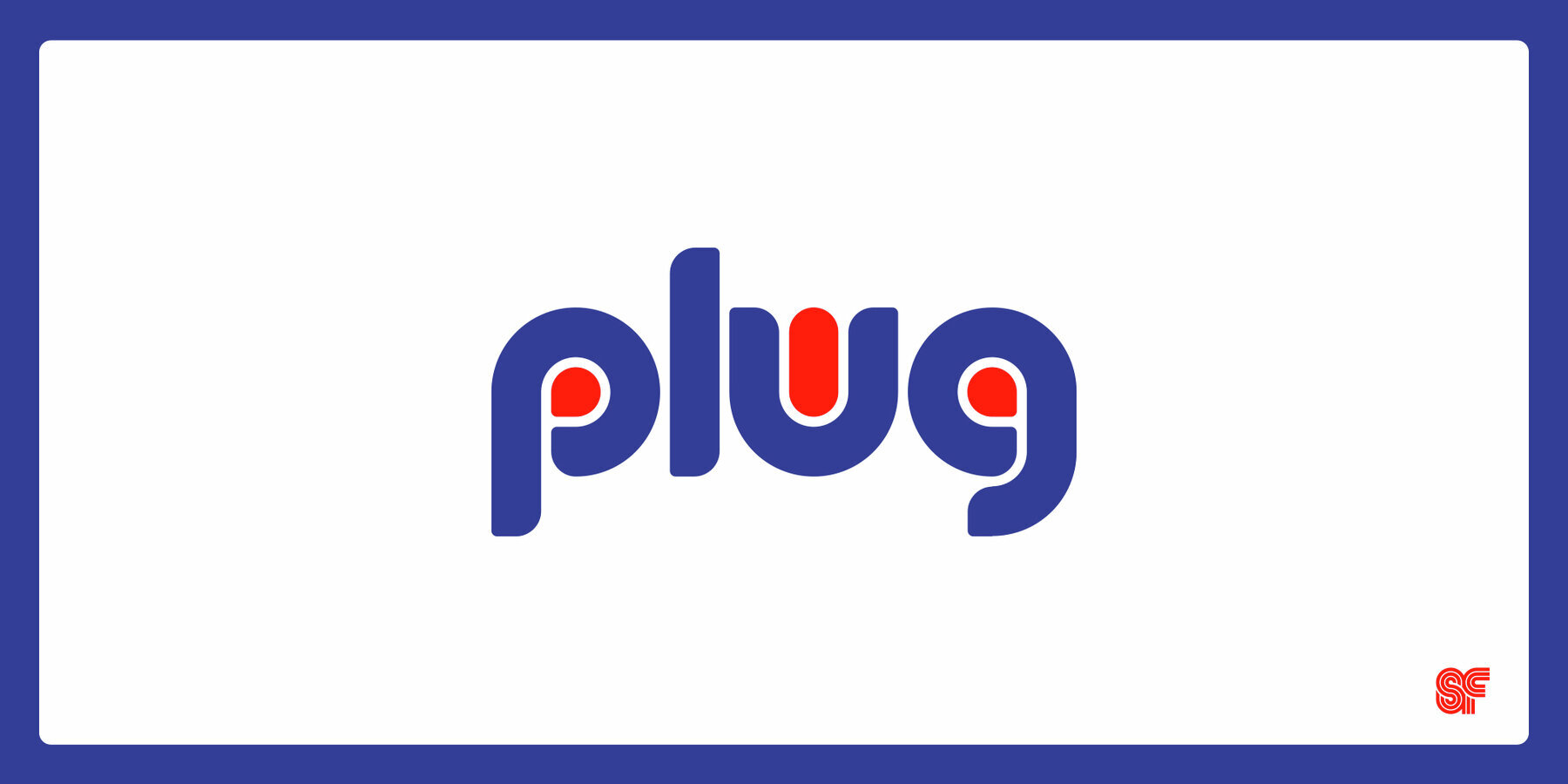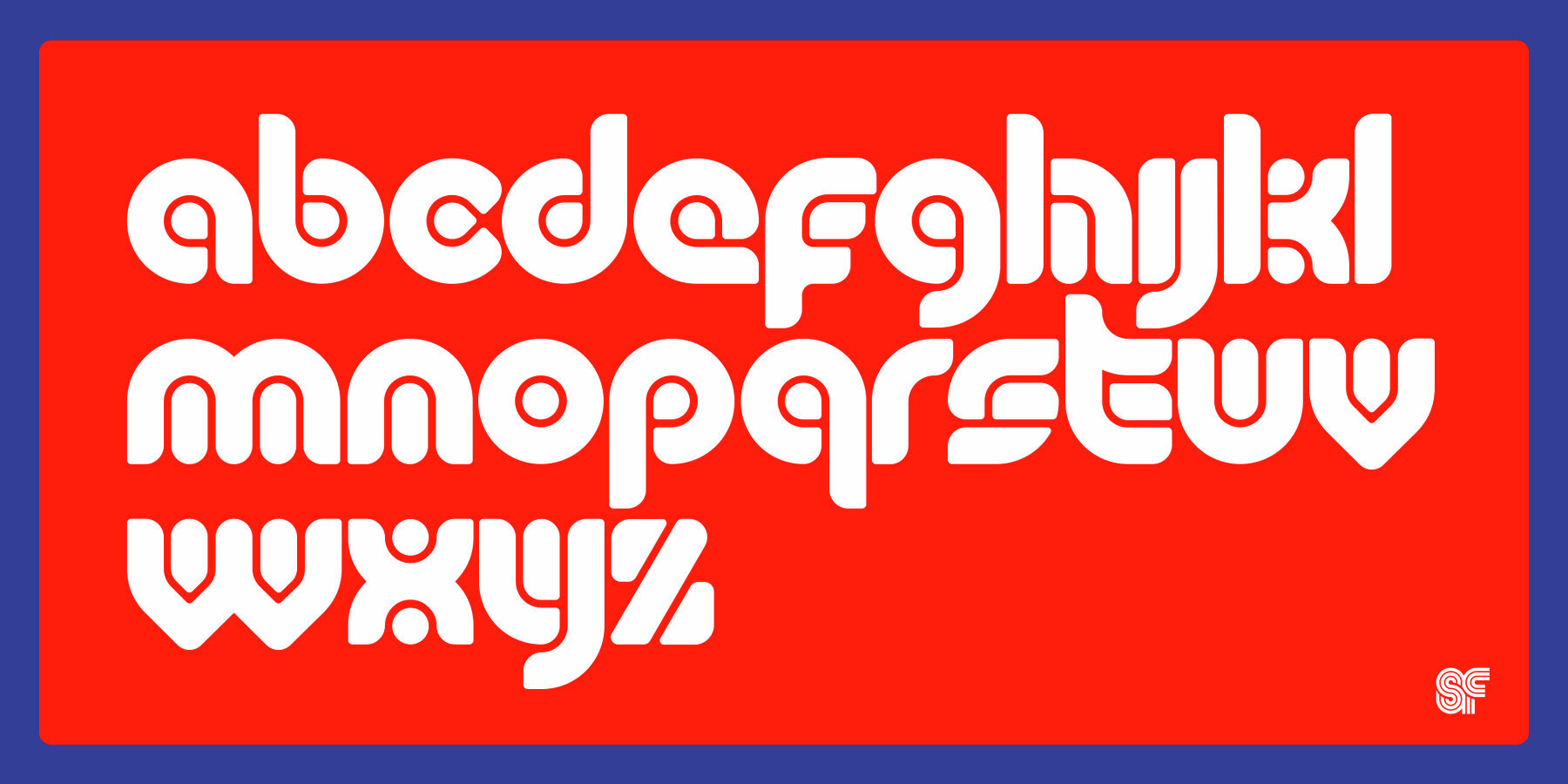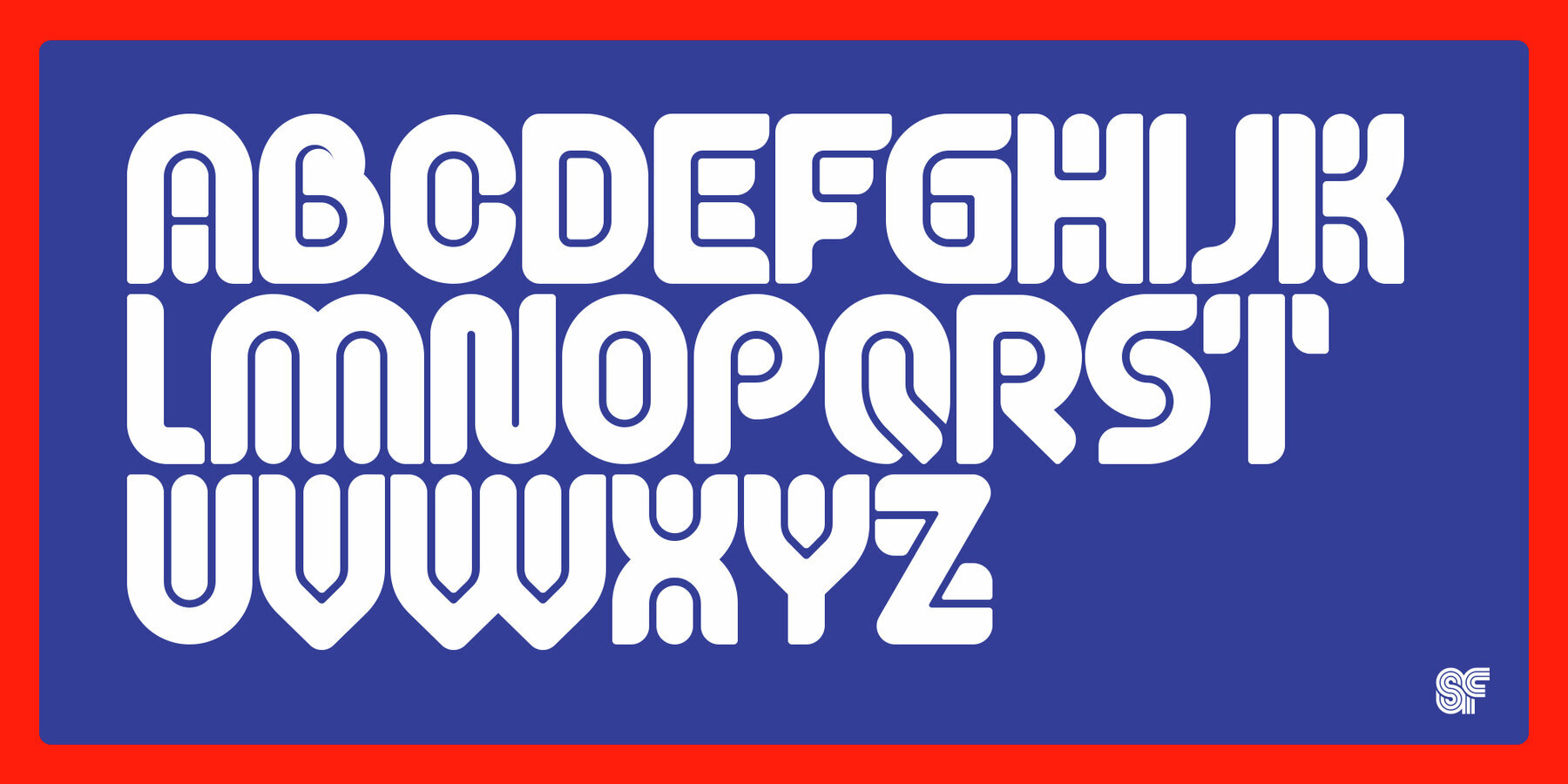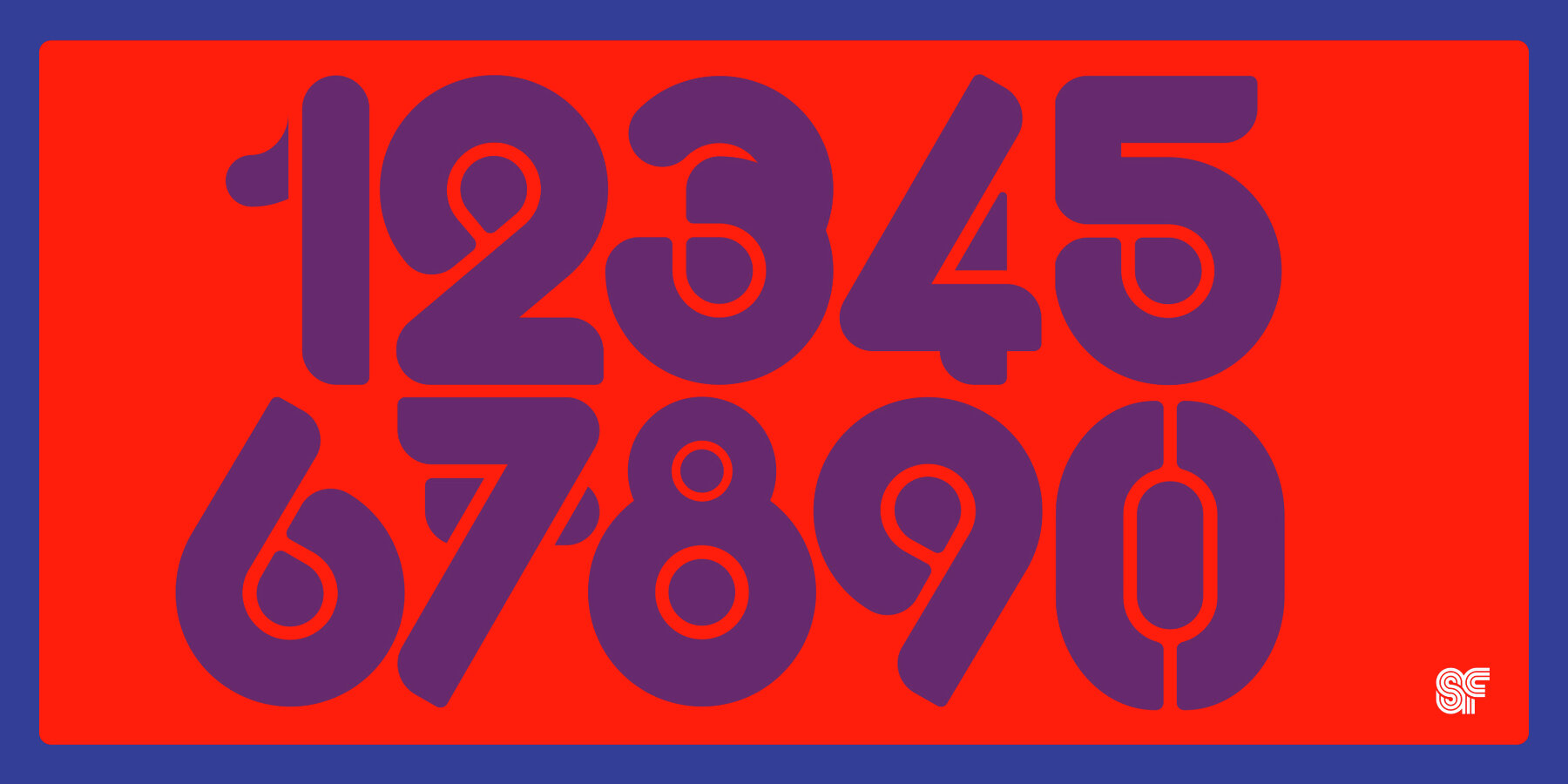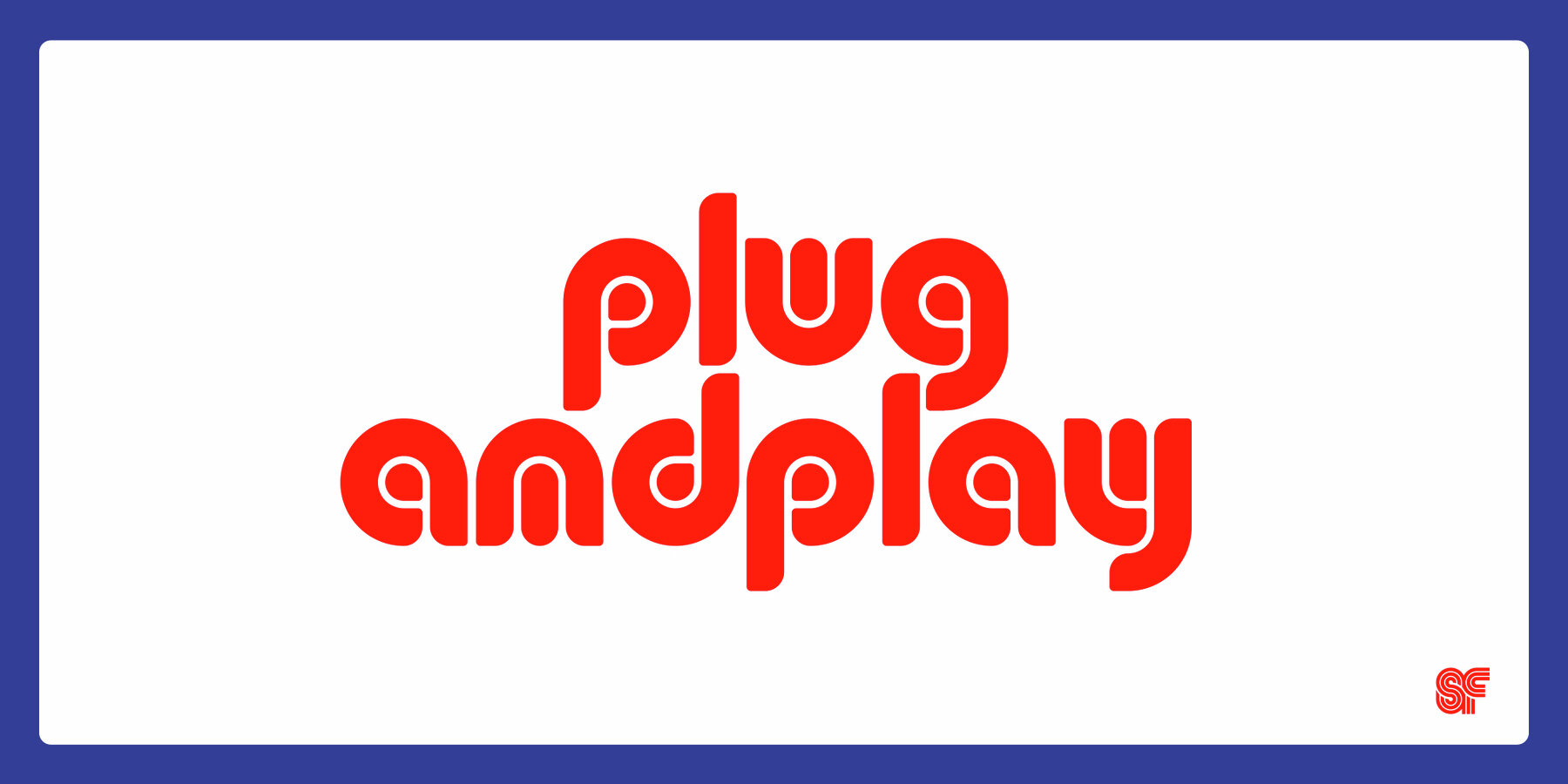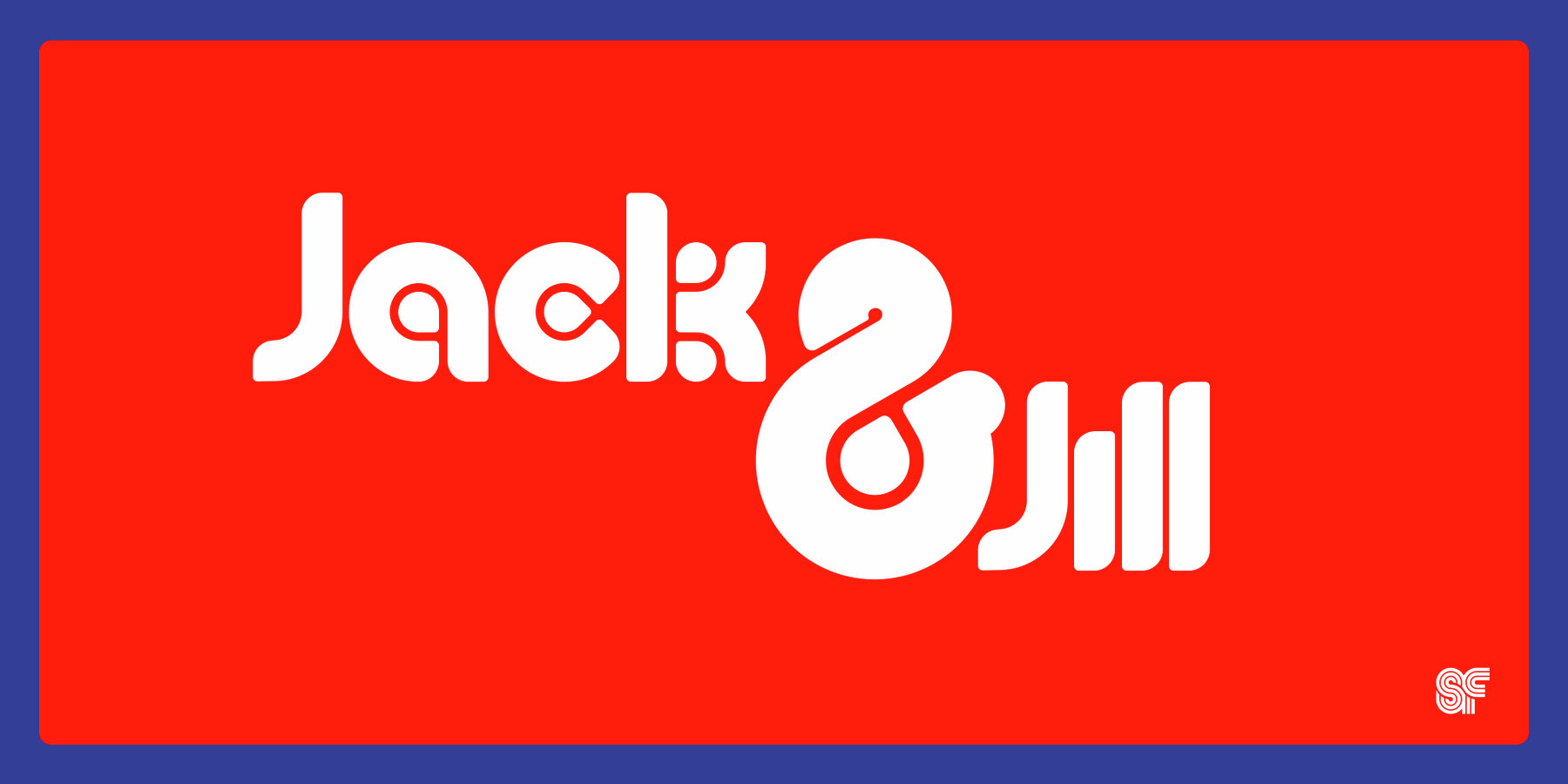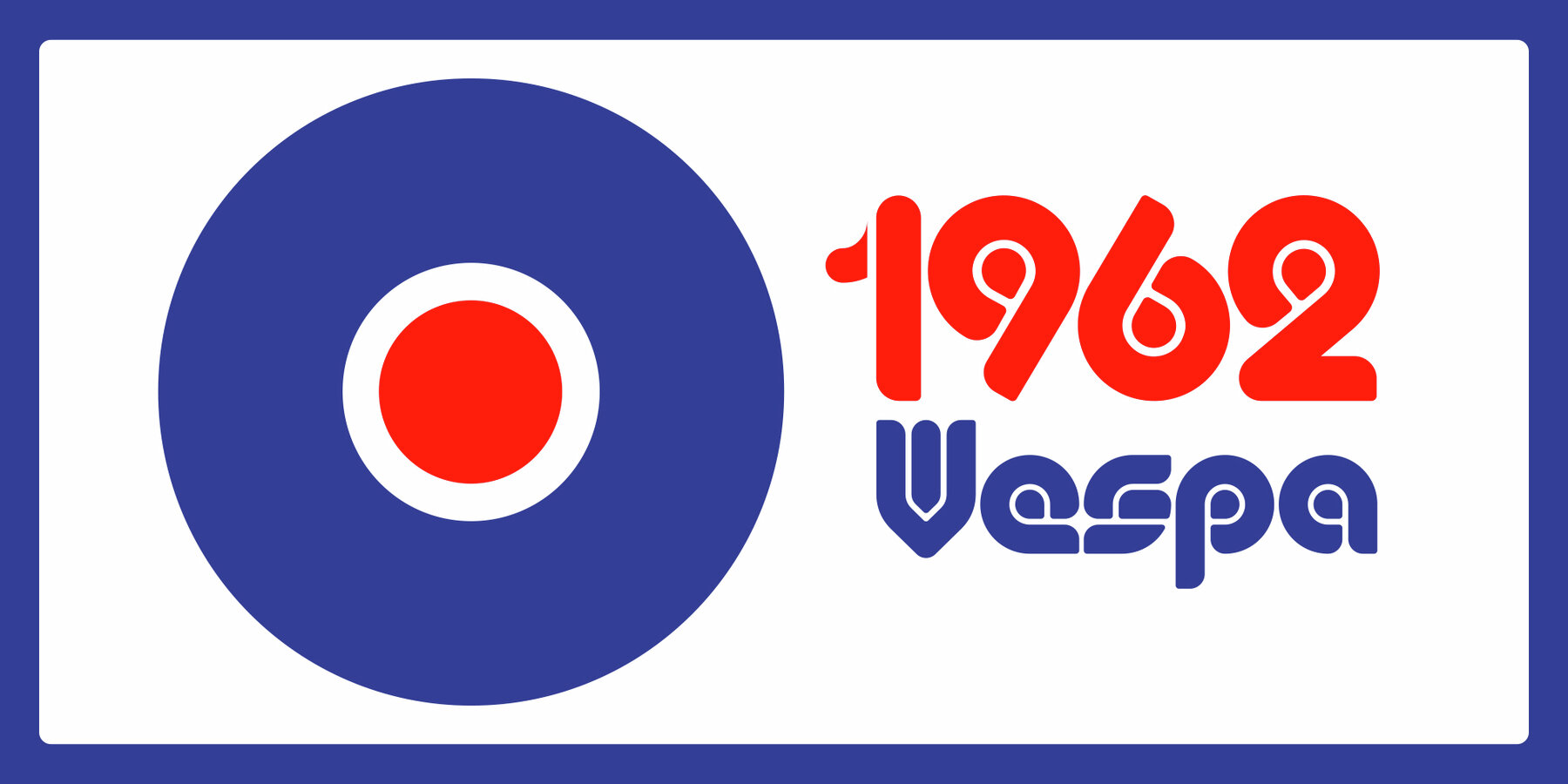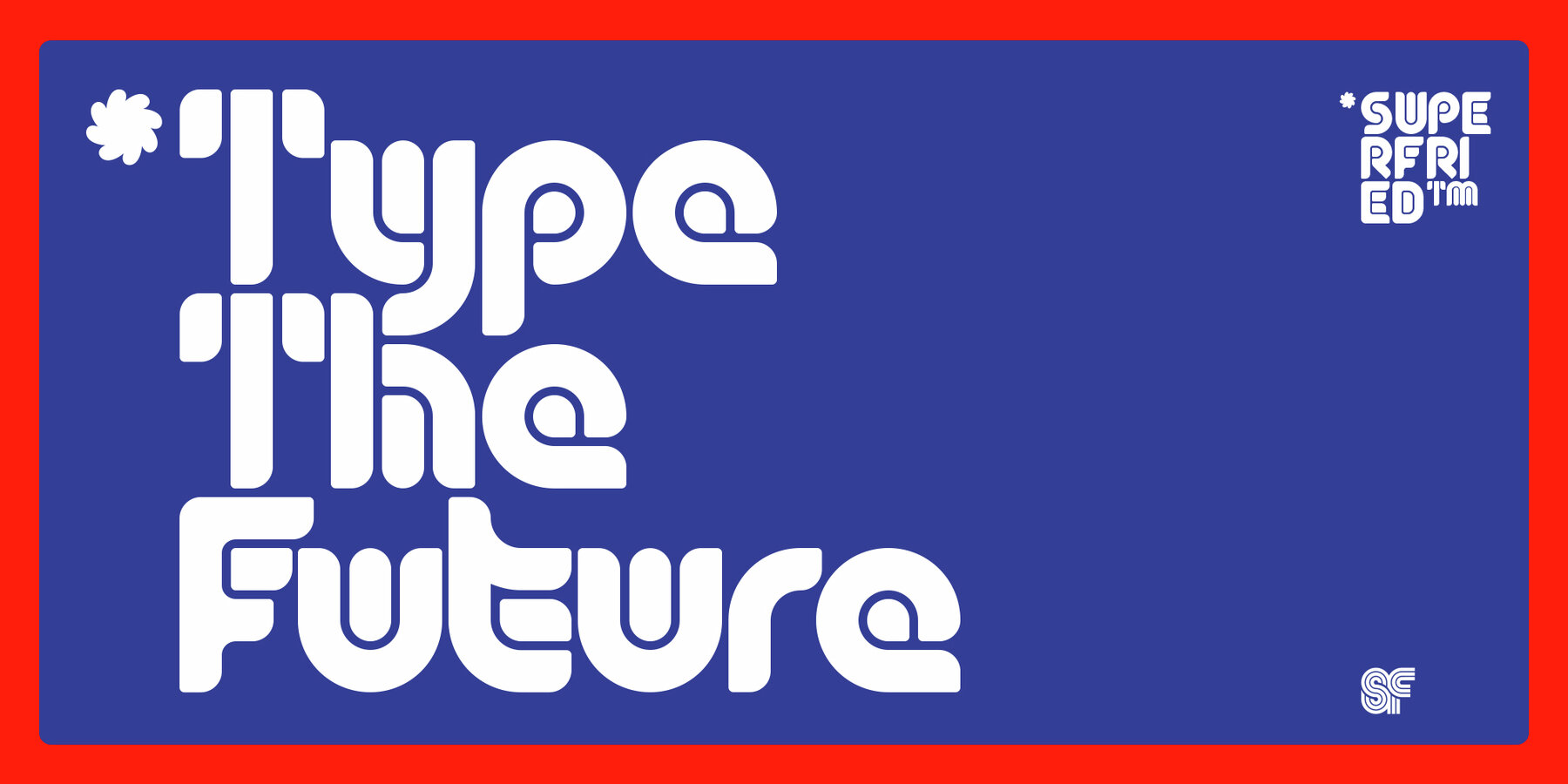
Plug Font
Plug Display
Plug is an experimental, curvy, display typeface designed by Superfried. As it’s name suggests, it features ‘plugs’ within all the glyph counters. Plug has a very retro feel and its chunky structure leads to a distinct, high-impact display font. Plug has been featured on the Behance curated typographic gallery TypographyServed.com.